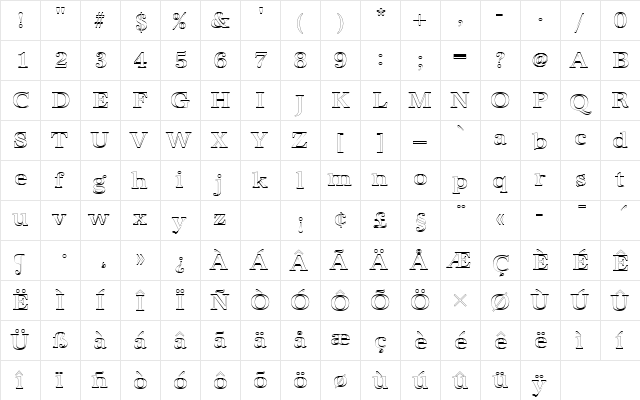
URWAntiquaTMedOu1 Regular Font Preview
URWAntiquaTMedOu1 Regular
Design Context for URWAntiquaTMedOu1 Typeface
URWAntiquaTMedOu1 is a composed and adaptable typeface that performs quietly and consistently across a wide range of design contexts.